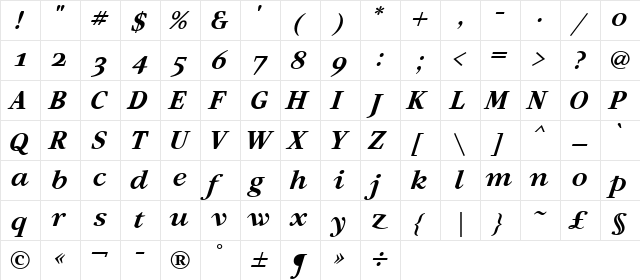
Artemius SN TT Bold Italic Font Preview
Design Context for Artemius SN TT Typeface
Artemius SN TT is a composed and adaptable typeface that performs quietly and consistently across a wide range of design contexts. Its italic angle brings a sense of urgency and motion to the letterforms. The heavy weight commands attention and anchors typographic hierarchies.